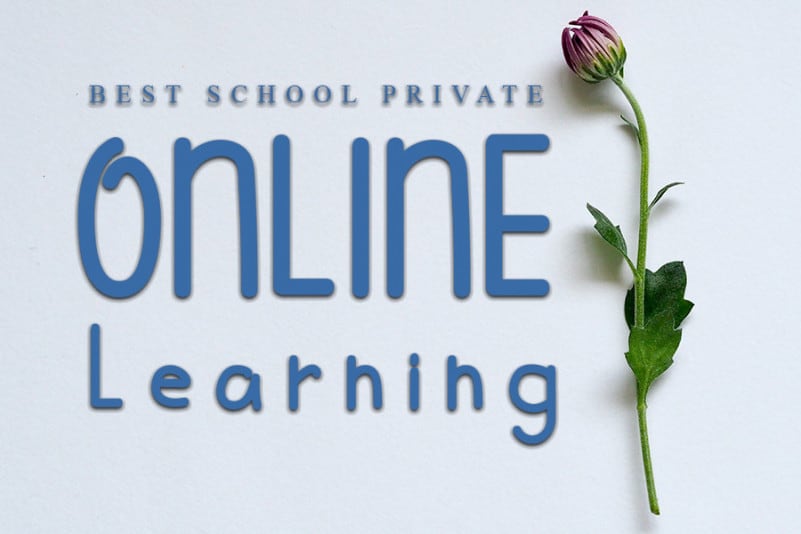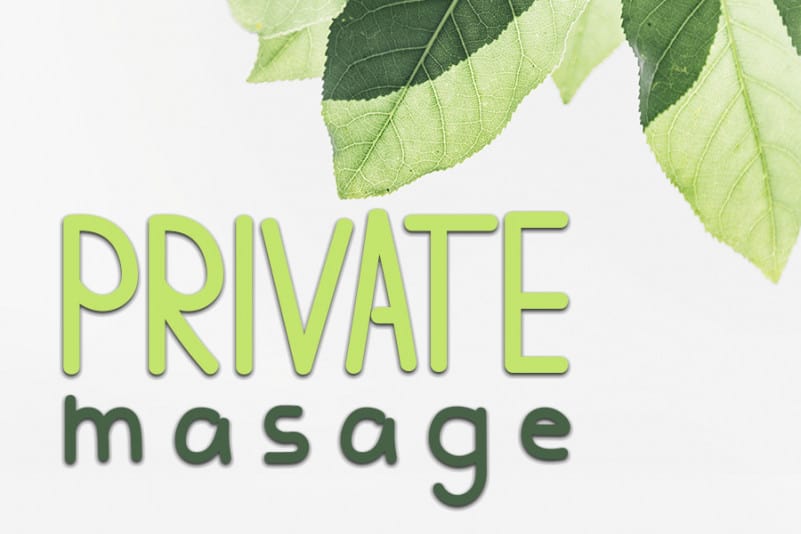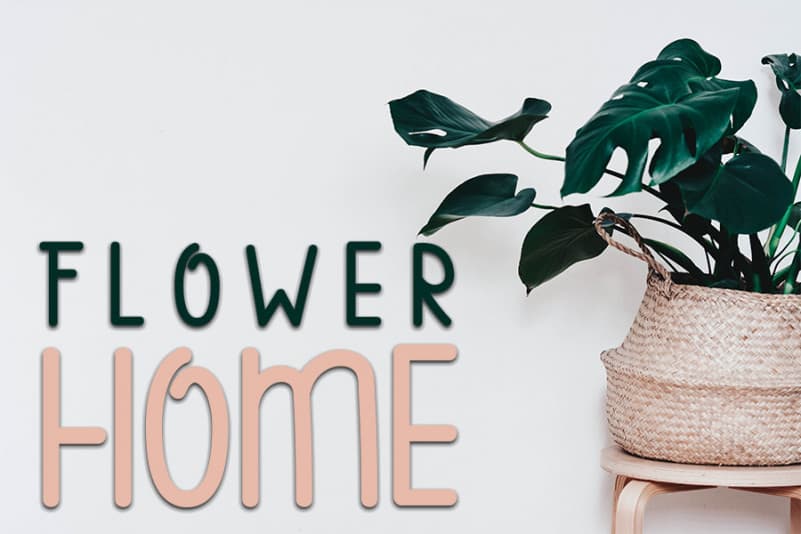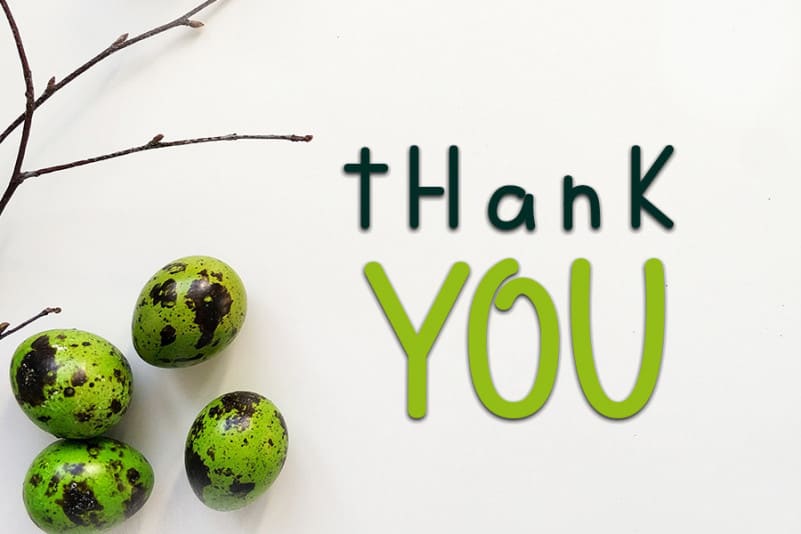
Smart School Display Font
Smart School Display Font is a great Sans Serif Font. It maintains its classy calligraphic influences while feeling contemporary and fresh. This versatility will appeal to a wide range of crafty ideas, from letterheads and titles to stationery.